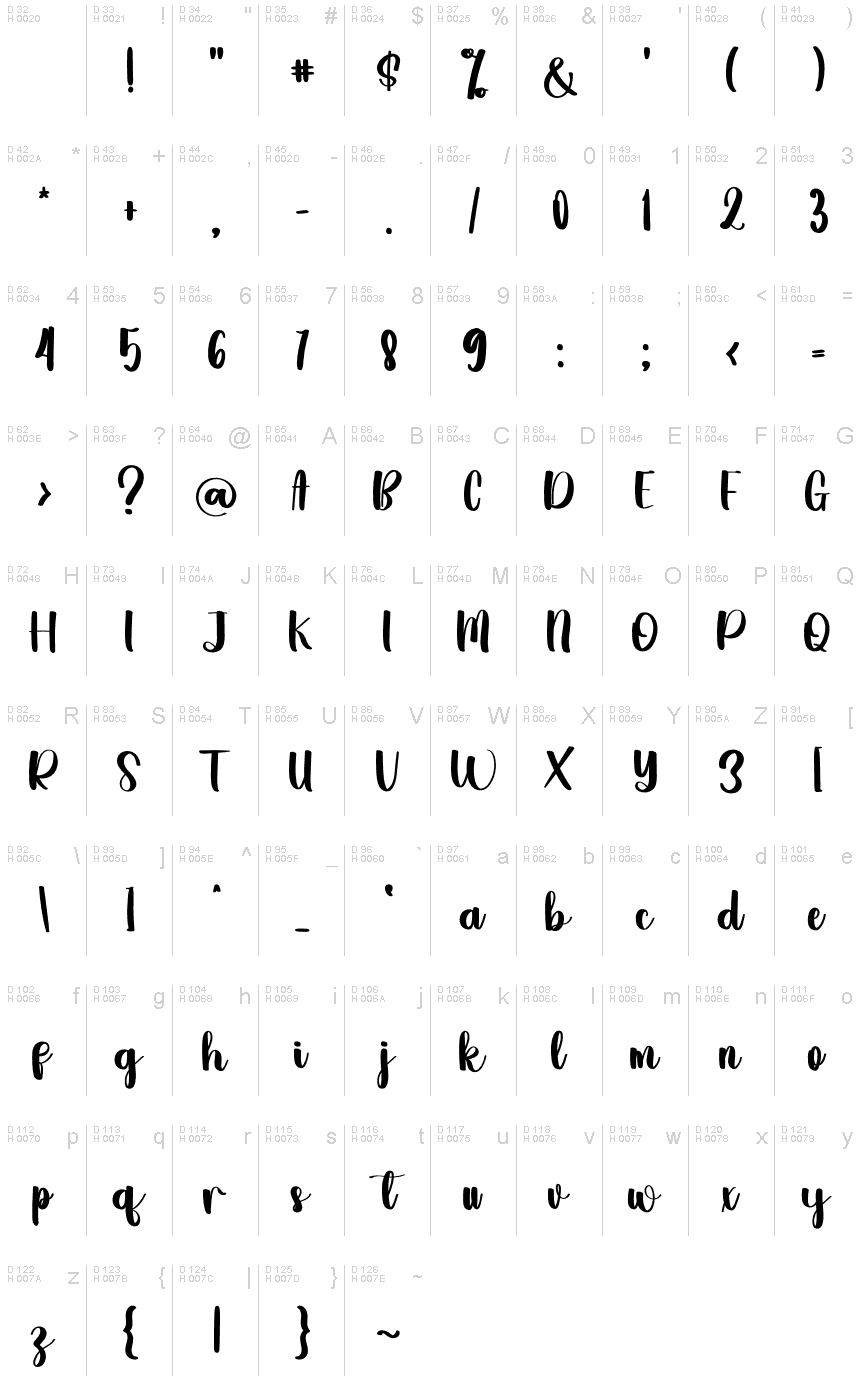
Untitleds
Untitleds is a bold, cool handwritten font designed by Inermedia Studio. It's perfect for creating modern designs with an artful touch. Use it for poster designs, book covers, t-shirt prints, web graphics and more!